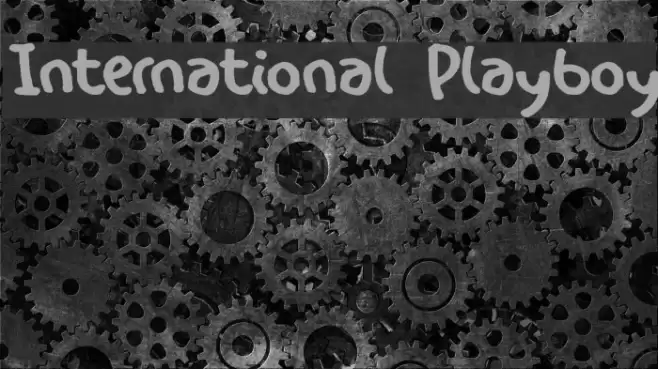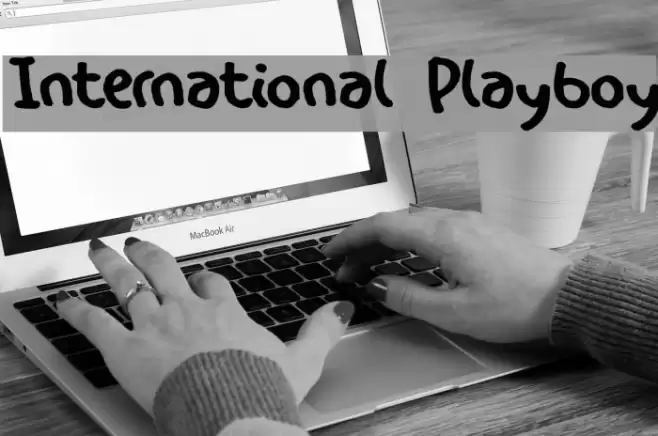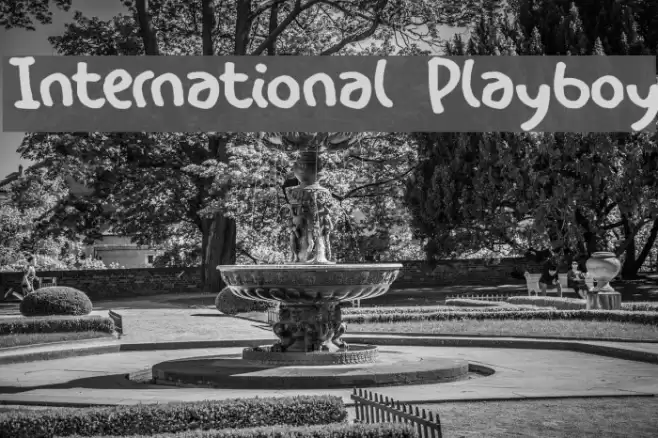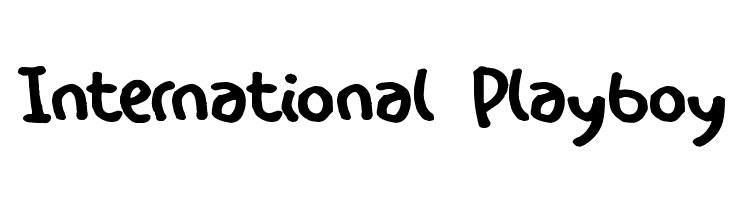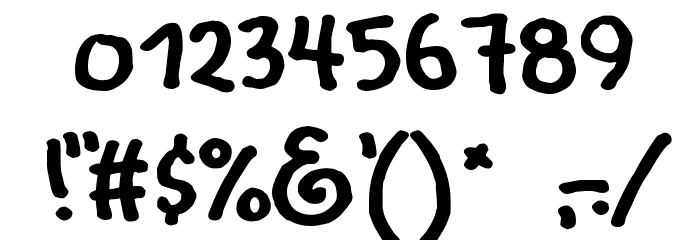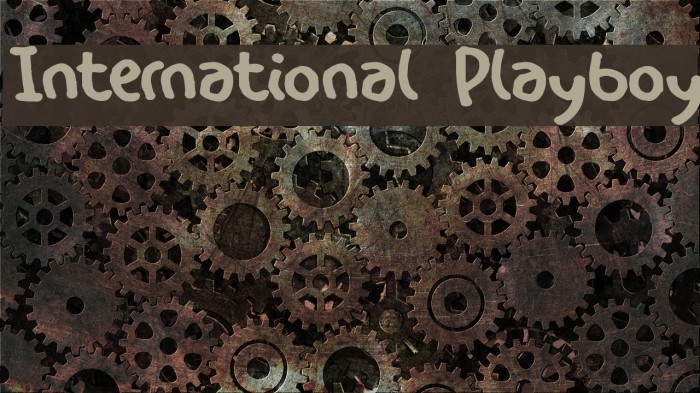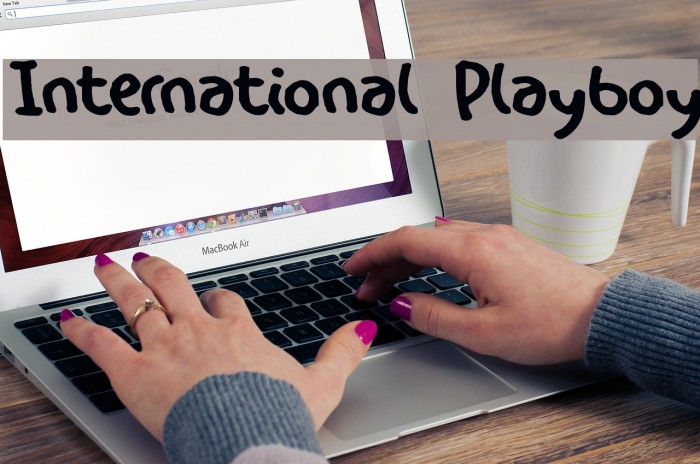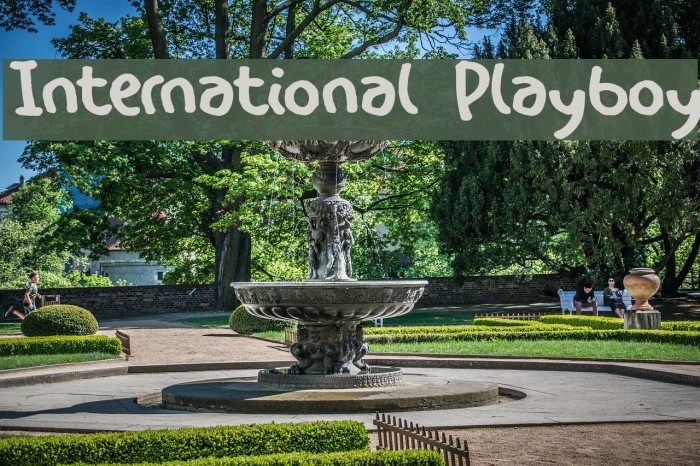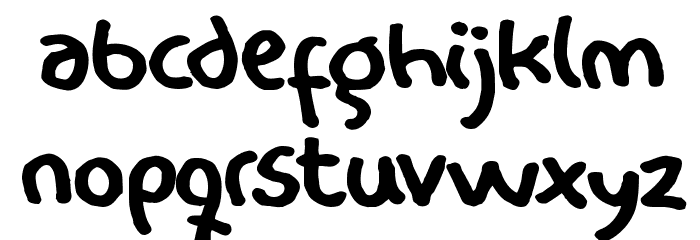
International Playboy Font
International Playboy Description
This playful and bold font exudes a sense of fun and informality. The characters are rounded and slightly irregular, giving them a hand-drawn appearance. The uppercase and lowercase letters maintain a consistent style, with thick strokes and a casual flair. Numbers and special characters follow the same design ethos, ensuring a cohesive look across all text. The font's unique personality makes it stand out, ideal for projects that require a touch of whimsy and creativity.
A bold, playful font with a hand-drawn, informal style from Kids fonts.
- Font: International Playboy
- Proposed Projects: Perfect for children's books, playful branding, casual invitations, and creative posters.
- Overall Style: Playful
- Use Case: Logos, Posters, Invitations